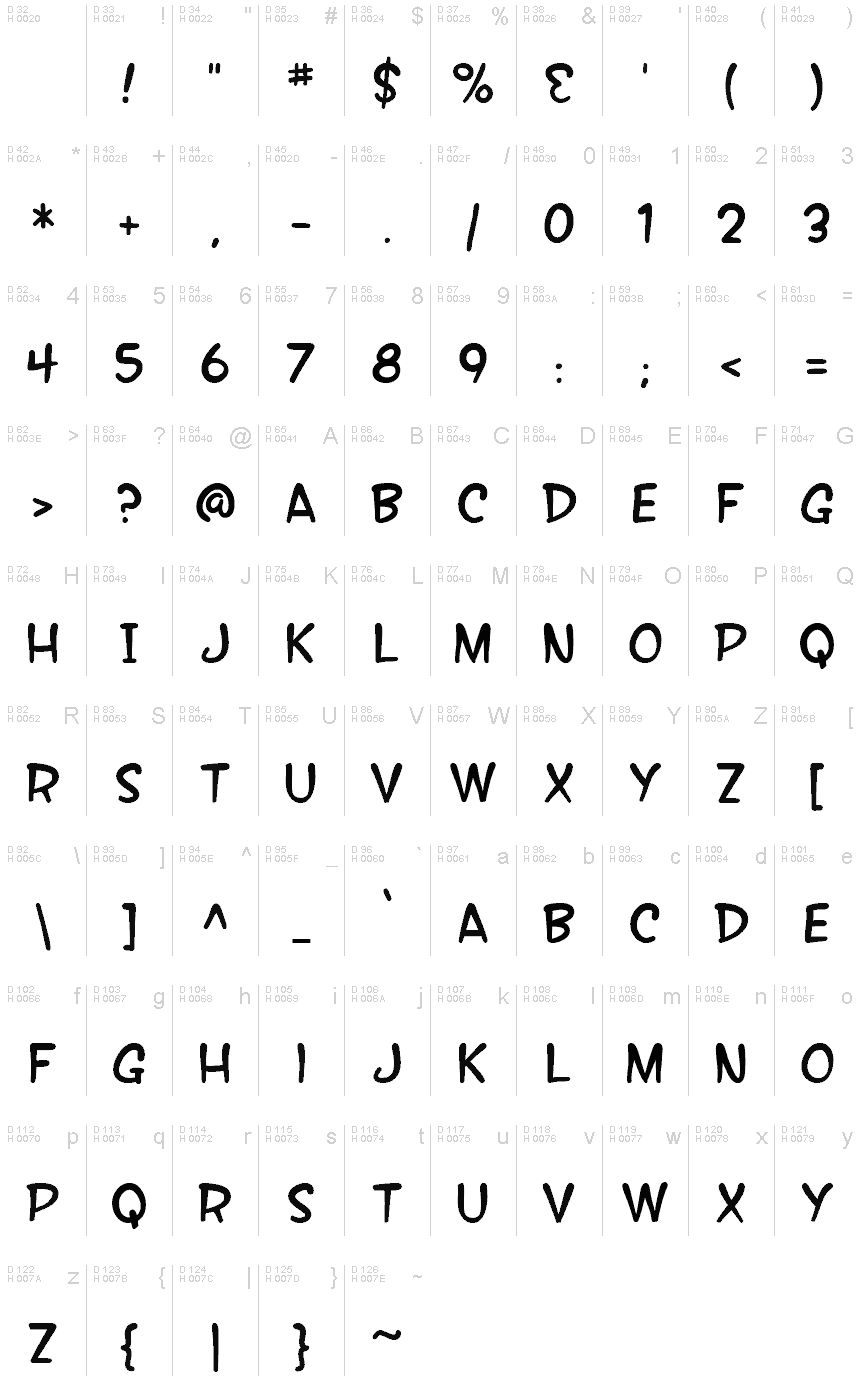
SF Wonder Comic
SF Wonder Comic, crafted by ShyFonts Type Foundry, is a playful and dynamic display font that exudes the whimsy and fun of classic comic book lettering. Its semi-light weight adds a lively airiness to the typeface, making it both readable and engaging. The unique design of SF Wonder Comic features friendly curves and a hand-drawn feel, which enhances its aesthetic appeal.
The font's comic style makes it an excellent choice for projects that require a touch of humor and personality. From children's books to casual game interfaces, SF Wonder Comic can breathe life into words with its approachable and energetic character. Its versatility extends to various creative endeavors such as party invitations, product packaging, or any design that benefits from a hint of lightheartedness.
SF Wonder Comic stands out with its ability to infuse charm into text while maintaining clarity—a rare quality in display fonts designed with such specificity in mind. It is this balance between style and functionality that makes SF Wonder Comic not just a font but an invaluable tool for designers looking to inject warmth and character into their creations.
The font's comic style makes it an excellent choice for projects that require a touch of humor and personality. From children's books to casual game interfaces, SF Wonder Comic can breathe life into words with its approachable and energetic character. Its versatility extends to various creative endeavors such as party invitations, product packaging, or any design that benefits from a hint of lightheartedness.
SF Wonder Comic stands out with its ability to infuse charm into text while maintaining clarity—a rare quality in display fonts designed with such specificity in mind. It is this balance between style and functionality that makes SF Wonder Comic not just a font but an invaluable tool for designers looking to inject warmth and character into their creations.